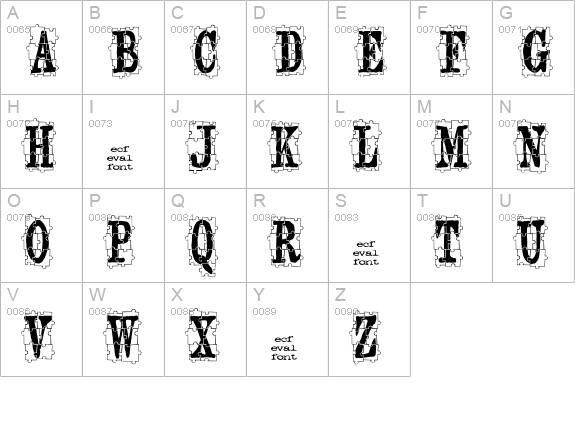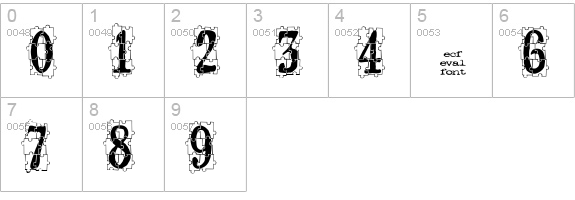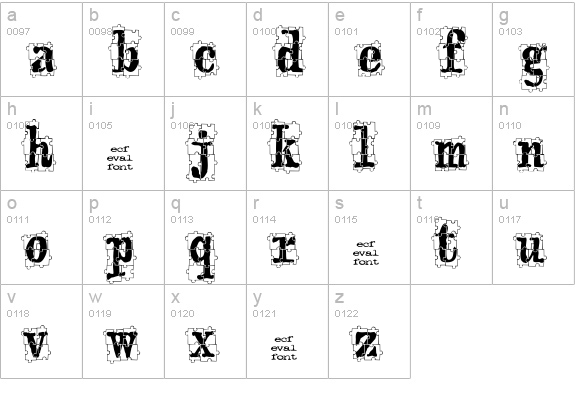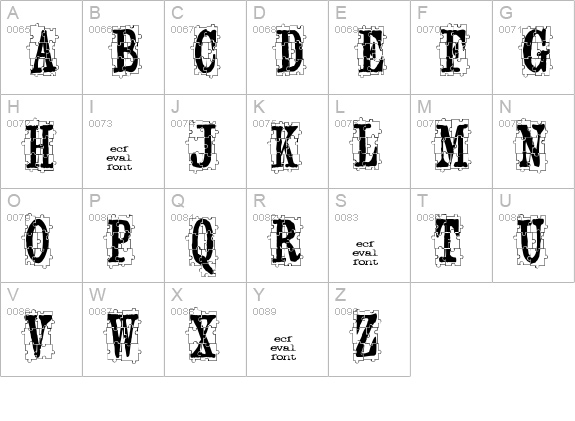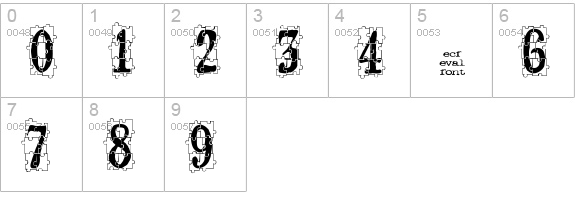
puzzleface (eval) Font Details
Introducing Puzzleface Eval font - a captivating display font that adds a touch of mystery and intrigue to any design project. With its intricate and puzzling letterforms, Puzzleface Eval is perfect for creating eye-catching headlines, posters, logos, and more. This unique font is available for free download exclusively at FontsMarket.com, making it easily accessible for designers looking to add a creative flair to their projects. Puzzleface Eval font is a versatile addition to your font collection, offering endless possibilities for creative typography and design. Download it today and unlock the potential to turn your designs into true works of art.